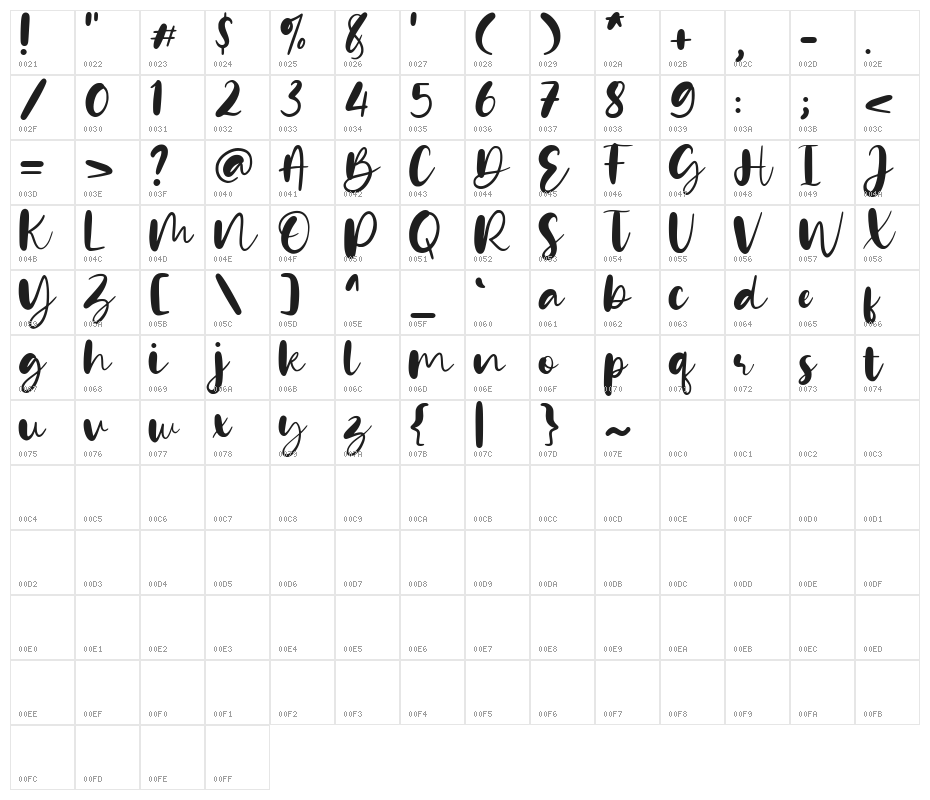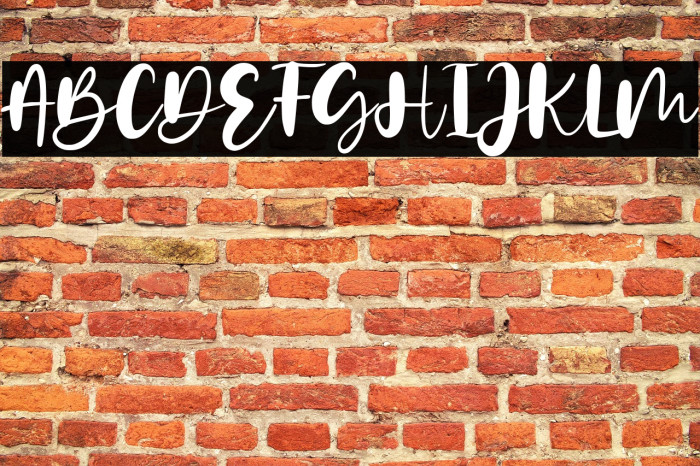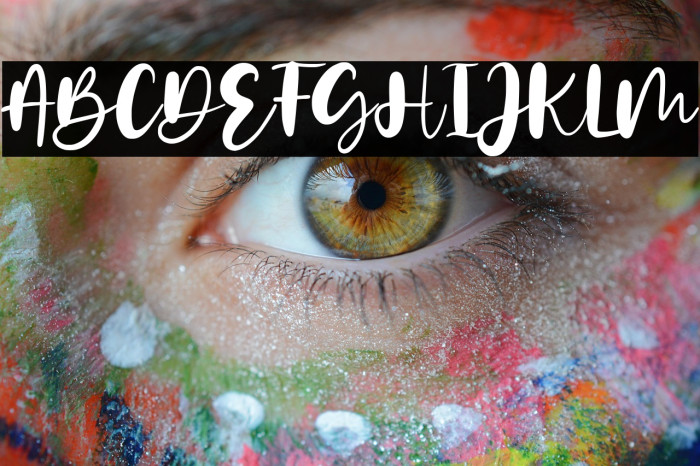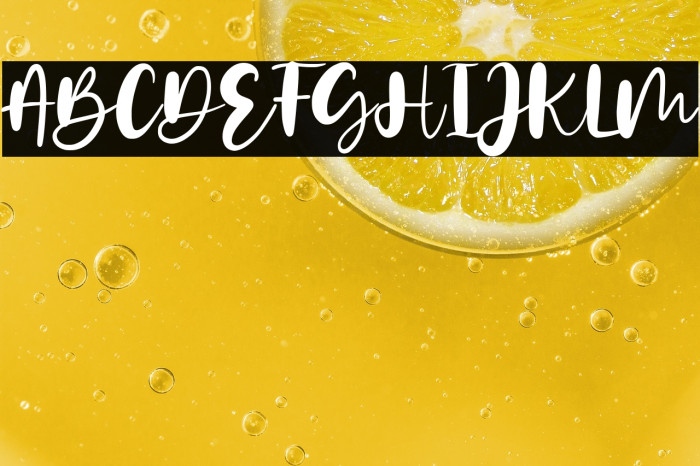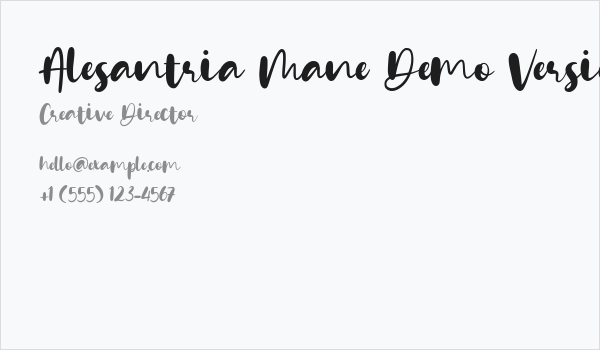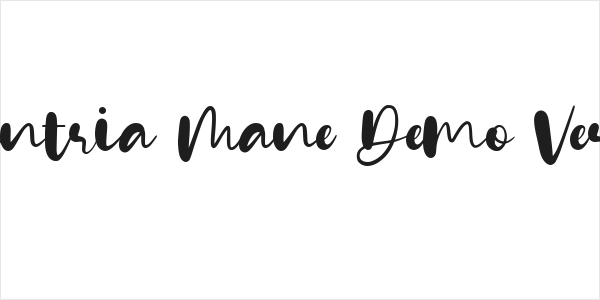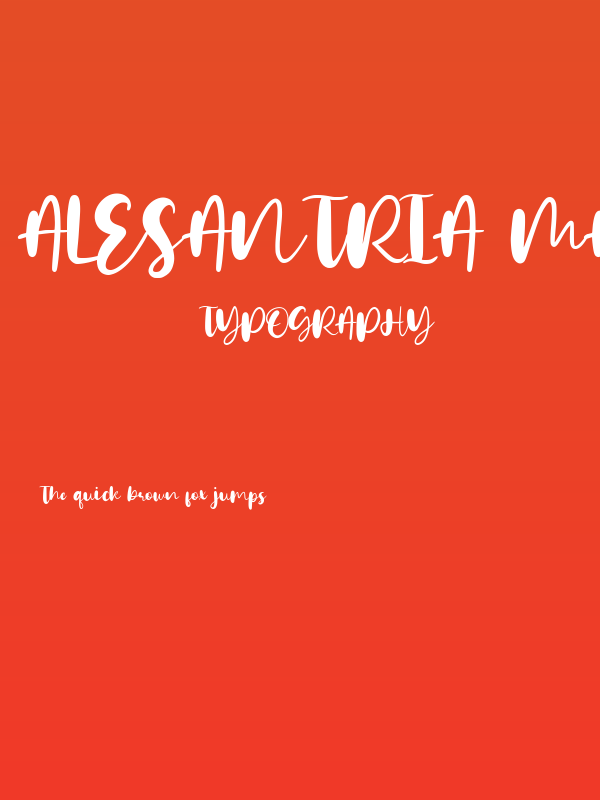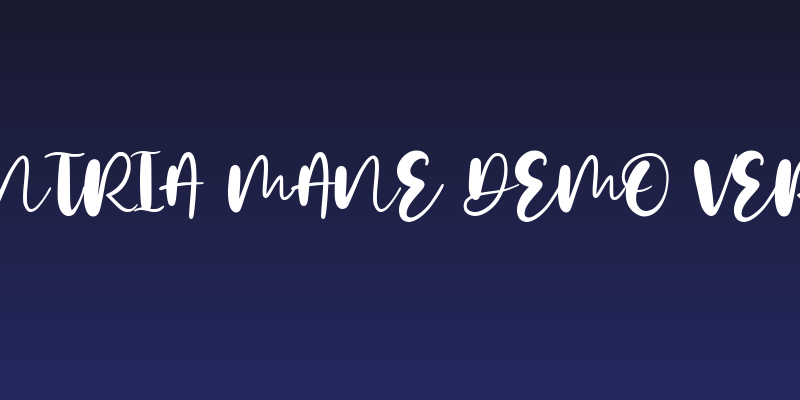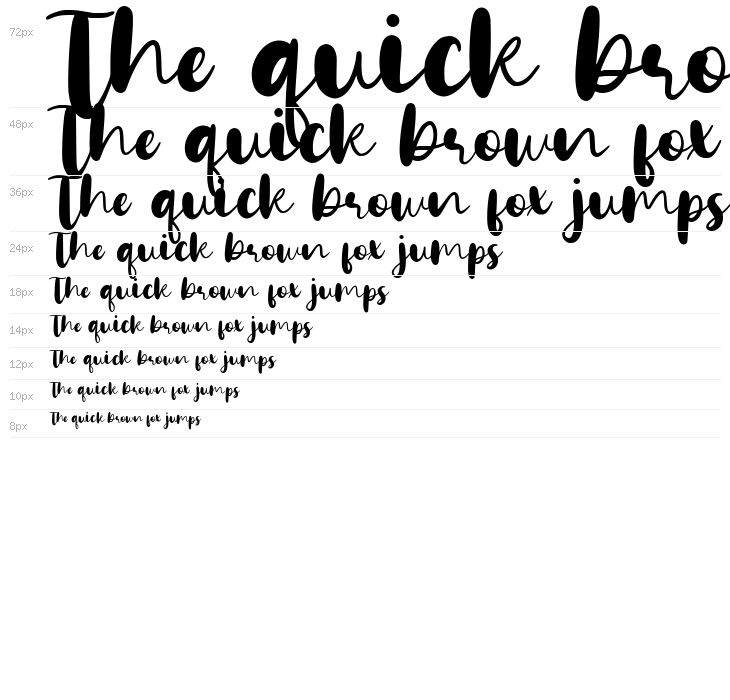
Alesantria Mane Demo Version Font
Alesantria Mane Demo Version Description
This font features a bold and expressive handwritten style, characterized by its fluid and dynamic letterforms. The uppercase letters are bold and slightly slanted, giving a sense of movement and energy. The lowercase letters maintain a consistent flow, with some characters featuring unique loops and swashes that add a playful touch. The numbers are bold and rounded, complementing the overall style. Special characters are creatively integrated, maintaining the font's lively and artistic feel. This font is ideal for projects that require a personal and artistic touch, such as invitations, branding, and creative designs.
| Use Case | Logos, Headlines, Creative designs |
| Proposed Projects | Ideal for invitations, branding, creative designs, and artistic projects. |